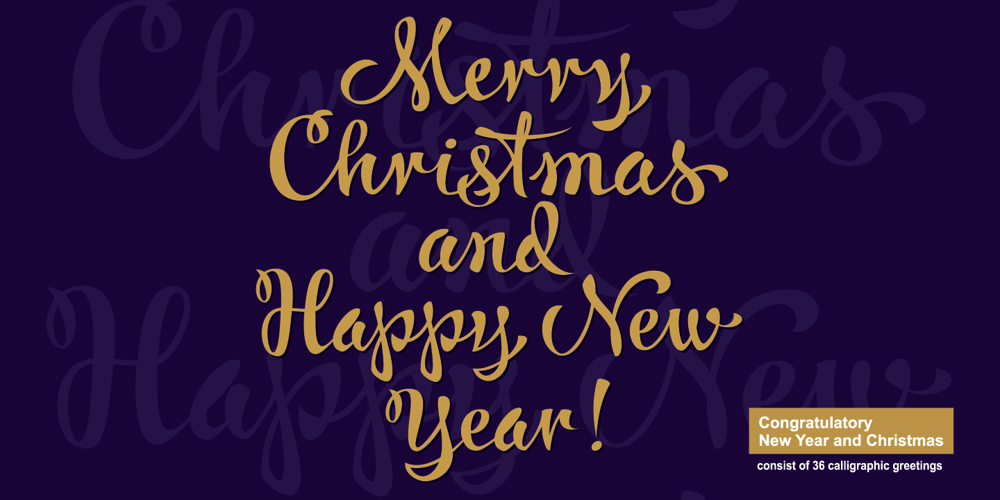
Congratulatory New Year And Christmas
Congratulatory New Year And Christmas font
Congratulatory New Year And Christmas Font Family was designed by Dmitriy Shchetinskiy and published by Dmitriy Shchetinskiy. Congratulatory New Year And Christmas contains 1 styles and family package options. Congratulatory New Year and Christmas font consist of 36 calligraphic greetings letterings. Letterings are original and handwritten. This font makes it possible to use high quality calligraphy in your projects – greeting cards, certificates, invitation cards, letters of commendation etc.